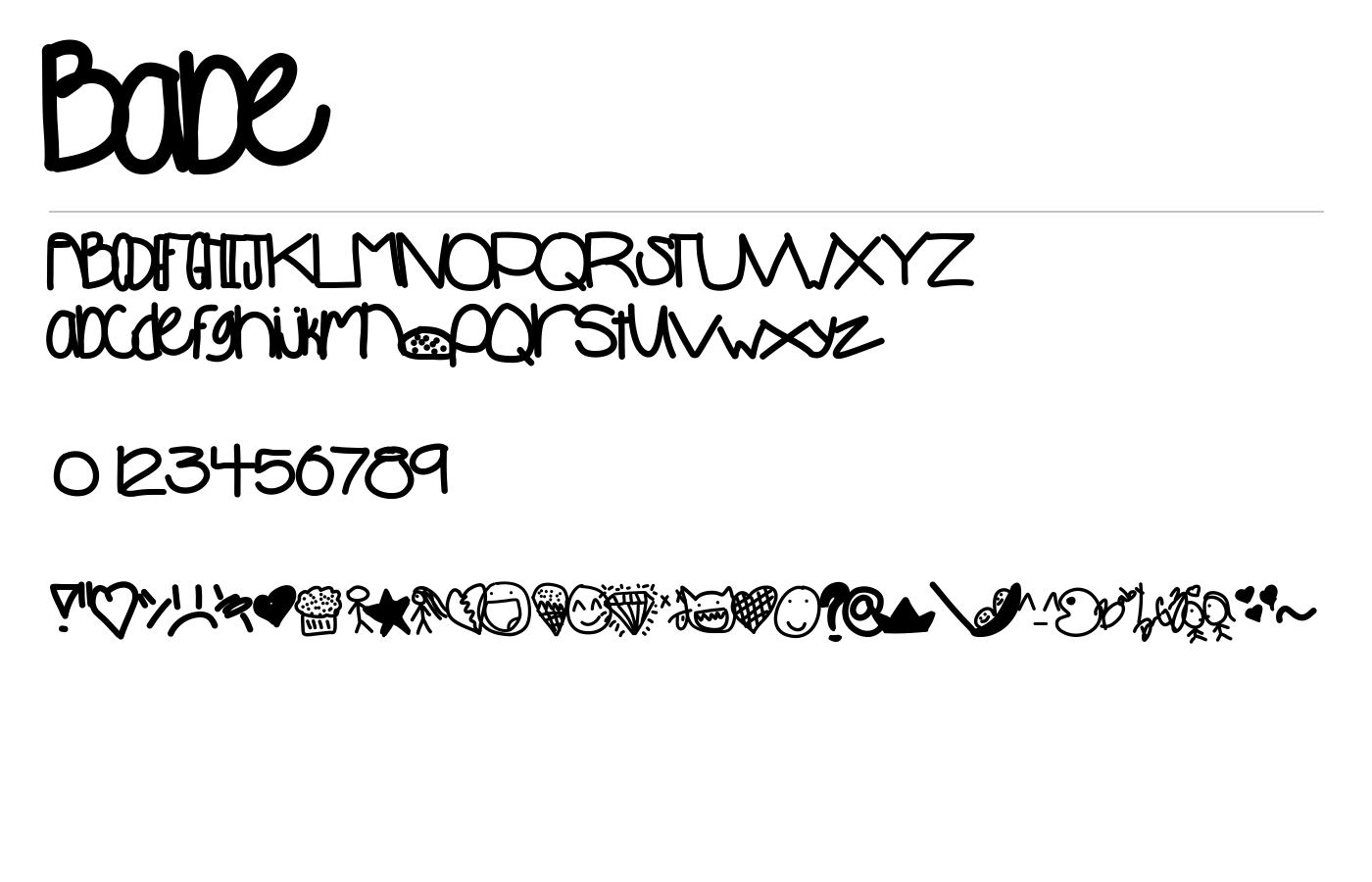
Babe Font is a playful and casual handwritten sans serif typeface with a loose, whimsical style. Its irregular and lively letterforms, combined with fun little doodle-like symbols, give it a friendly, informal personality perfect for creative and youthful designs. This font works well for personal projects, children’s materials, casual branding, and any context that benefits from a lighthearted, approachable feel.
Babe Font
About Babe Font